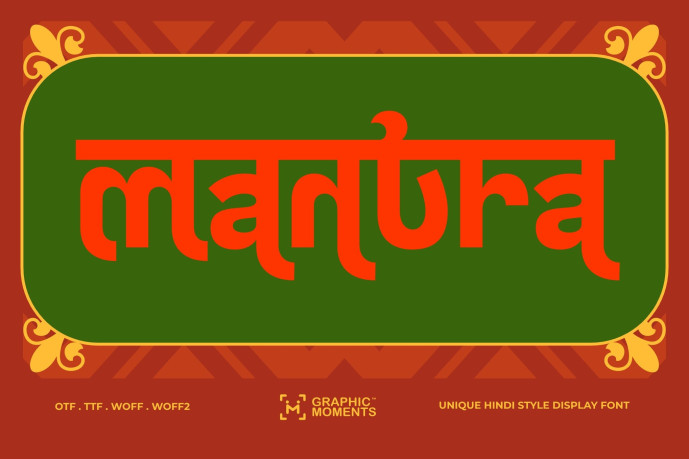
Mantra – Hindi Font
Mantra – Hindi Font is a bold and culturally rich Hindi-style display font that captures the divine essence of Indian typography. Influenced by the flowing beauty of Devanagari and Devnagri scripts, it merges the artistic details of Hindi, Marathi, Gujarati, Malayalam, and Telugu writing systems into a modern visual harmony. The font reflects the sacred geometry and rhythm found in Sanskrit manuscripts, while embracing the festive energy of Indian culture. Ideal for Bollywood-inspired designs, religious branding, or cultural projects, Mantra brings authenticity and warmth to every creative work.
Evoking the glow of Diwali and the spiritual depth of Hindu tradition, Mantra is perfect for designs that celebrate faith, art, and festivity. Its strong yet elegant shapes make it suitable for logos, posters, invitations, and packaging that aim to express Indian identity and devotion. Whether used for Deepavali campaigns, traditional crafts, or modern cultural design, Mantra unites heritage and creativity—making every word feel like a prayer written in light.
Timeless Hindi essence, reimagined for today